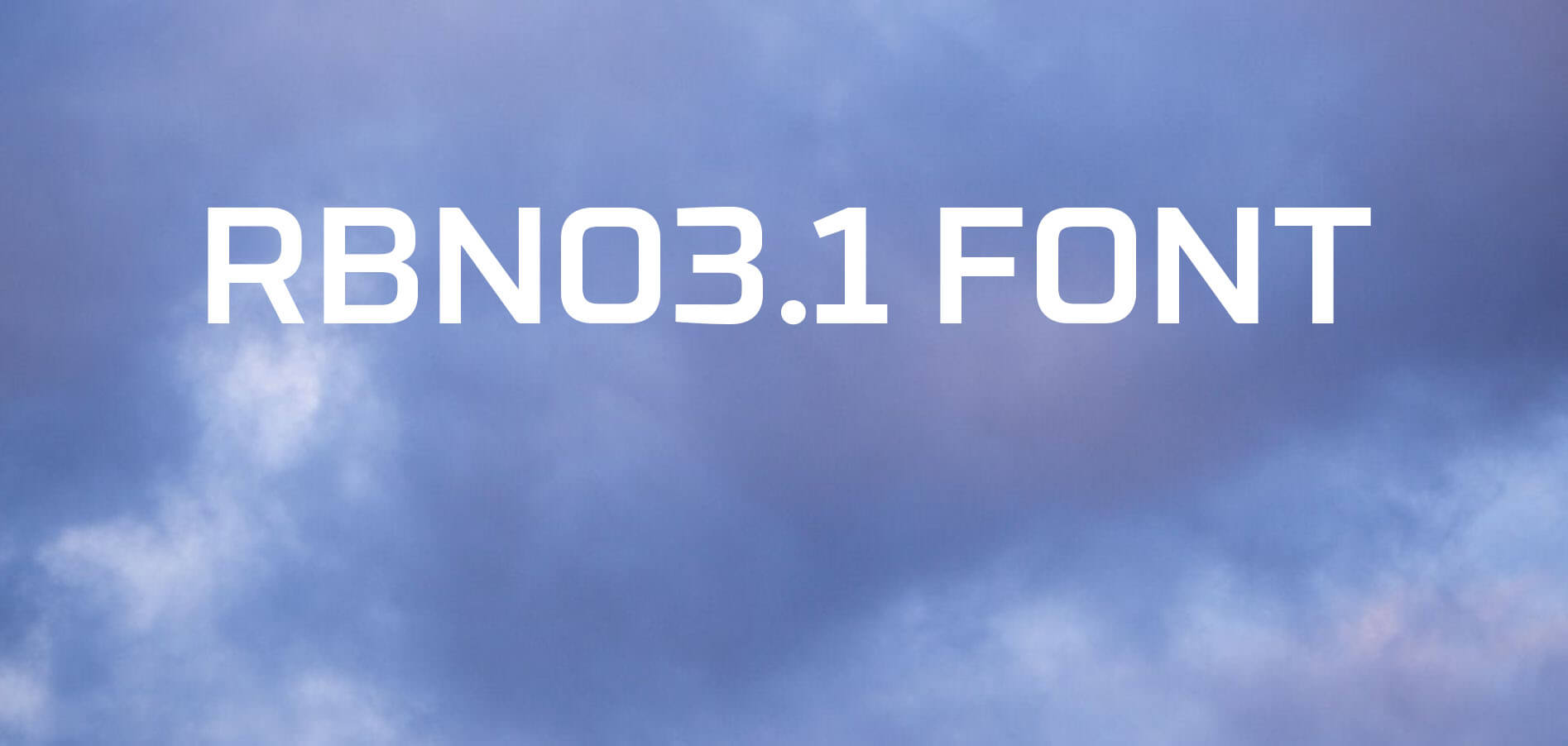
RBNO3 is belonging to the geometric sans-serif typeface. This typeface was designed by a German typeface designer and an Art designer Rene Bieder. This font family comprises nine weights including Bold, Book, Black, Light, etc, and also with matching italics.
This typeface contains unique glyphs and different stylish characters including uppercase, lowercase, numbers, punctuations, icons, and some special characters too.
RBNO3 Font